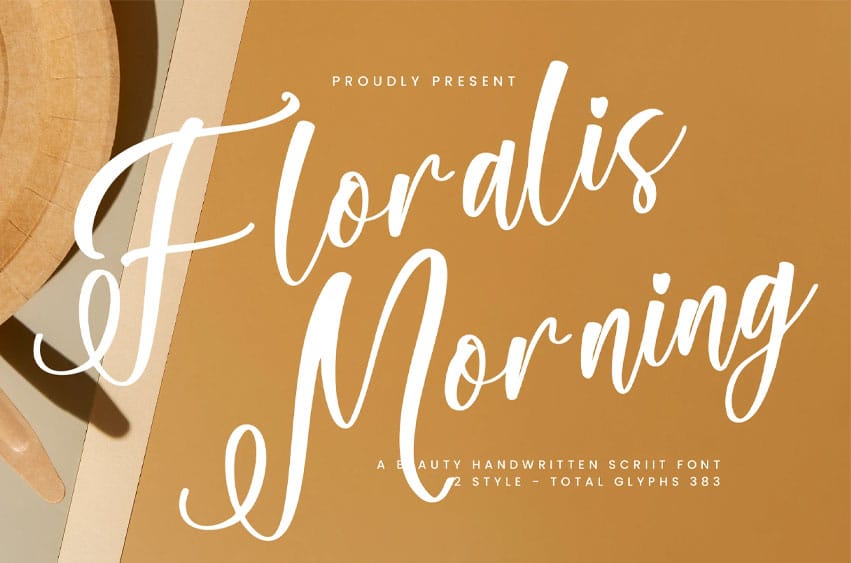
Floralis Morning Font is a soft and graceful beauty handwritten script font that brings a fresh, feminine charm to every design. Inspired by delicate floral aesthetics and elegant penmanship, this font flows naturally with smooth curves and airy strokes, perfect for projects that need a touch of elegance and warmth.
Beauty Script Style: Combines the softness of cursive writing with an artistic, modern look for a refined yet approachable appearance. Elegant & Feminine: The font is crafted with gentle curves and expressive ligatures, making it perfect for delicate, high-end designs. Smooth Flowing Lines: Each character is designed to connect seamlessly, emulating the feel of handwritten calligraphy. Complete Character Set: Includes uppercase, lowercase, alternates, ligatures, and multilingual support to expand creative possibilities. Ready for Elegant Branding: Ideal for beauty logos, wedding designs, boutique packaging, and other feminine-inspired visuals. Make your next design bloom with Floralis Morning! Whether you’re creating romantic invitations or branding a luxurious beauty line, this handwritten script font will deliver the elegance and charm your work deserves. Click to purchase and start designing beautifully today!
Perfect for:
- Branding and Logos
- Invitations
- Social Media Content
- Website Headers
- Personal Design & more!
Floralis Morning Font Preview